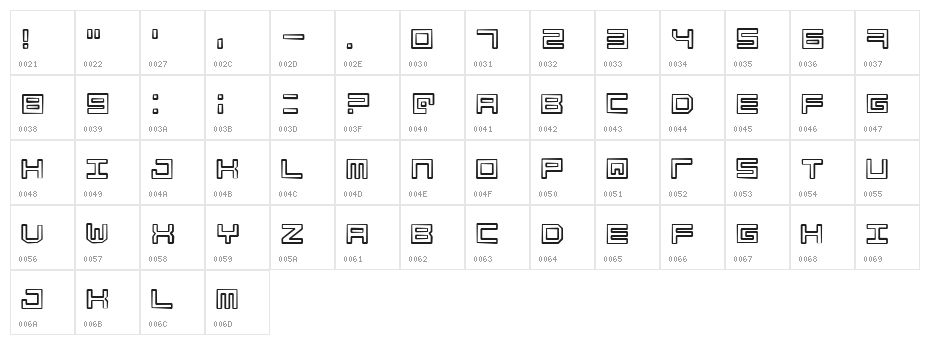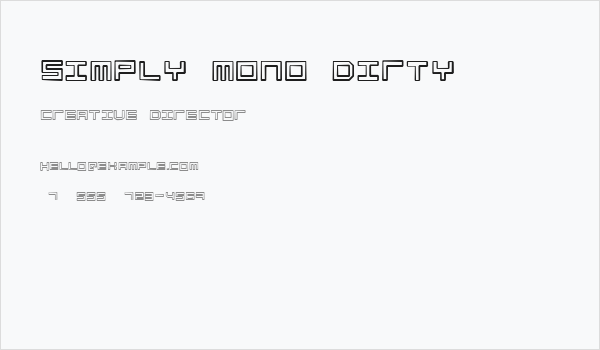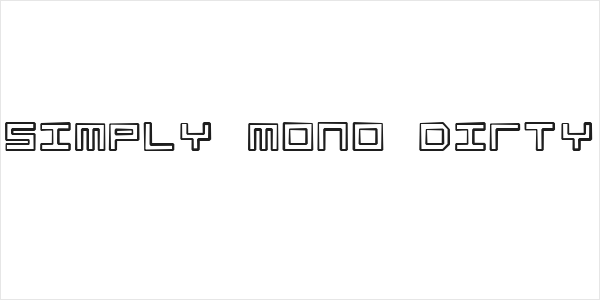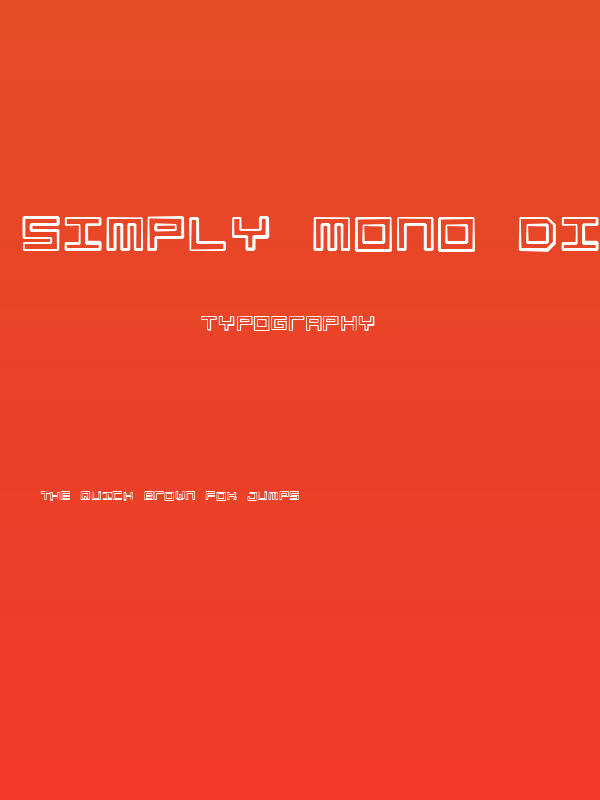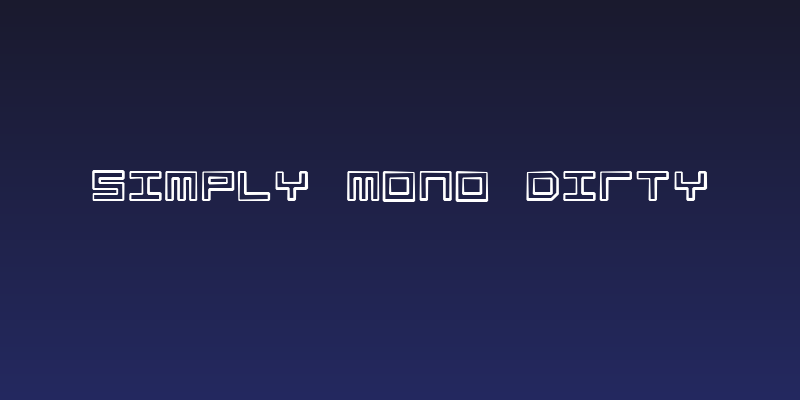
Simply Mono Dirty Font
Simply Mono Dirty Description
This font features a bold, geometric design with a distinct outline style, giving it a modern and technical appearance. Each character is constructed with clean, straight lines and sharp angles, creating a sense of precision and clarity. The uppercase and lowercase letters maintain a consistent height, contributing to a uniform and balanced look. The numerals and special characters are designed with the same attention to detail, ensuring a cohesive visual experience across all elements. This font's unique outline effect adds a layer of depth, making it stand out in various design contexts.
| Proposed Projects | Ideal for technology branding, futuristic designs, posters, and digital interfaces. |